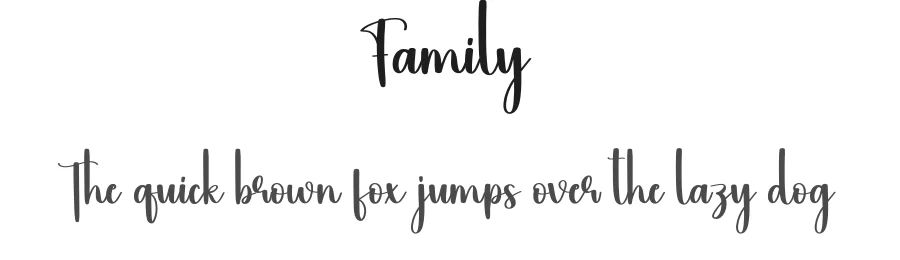
About Monthing Font
Monthing Specifications
Monthing Font is a script font that shines as a display or heading face. Pair it with a clean sans-serif or serif font for body text β the contrast creates a clear hierarchy while the two styles stay balanced and easy to read.